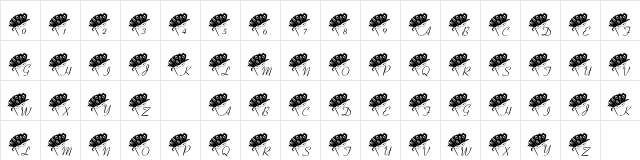
101! Mardi Mask Regular
Design Context for 101! Mardi Mask Typeface
101! Mardi Mask is a composed and adaptable typeface that performs quietly and consistently across a wide range of design contexts.